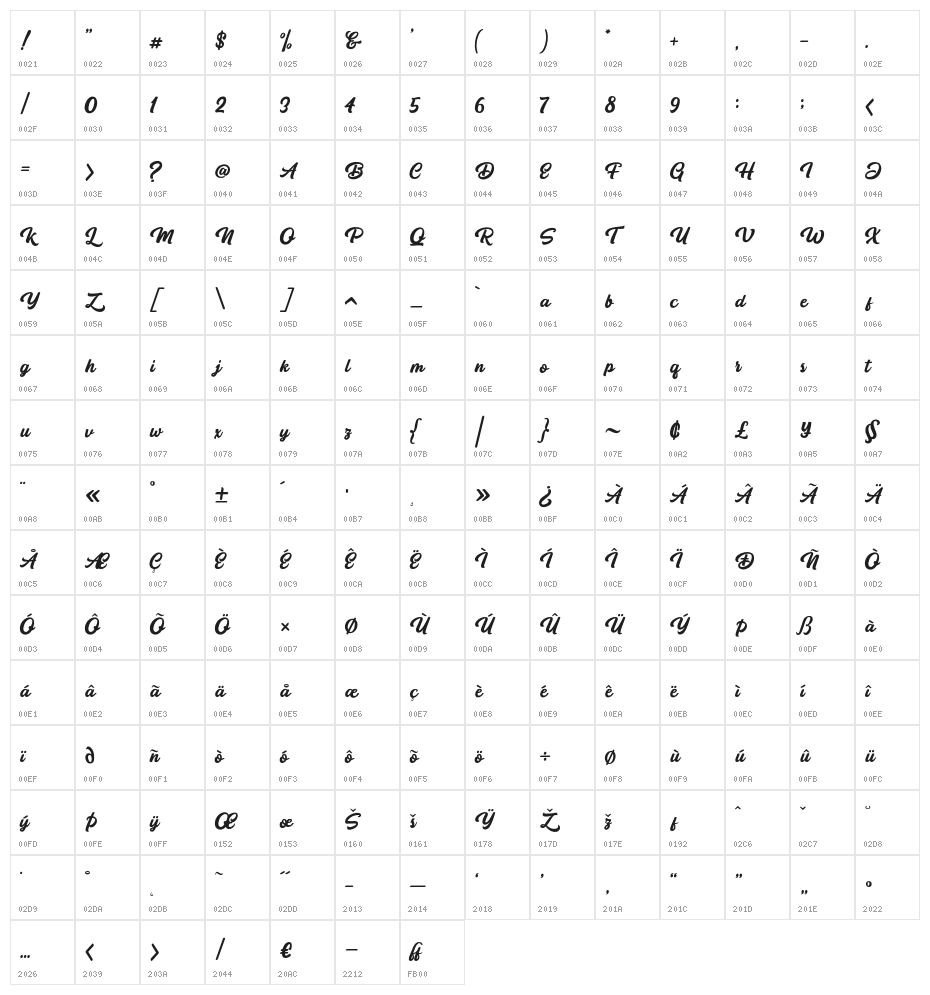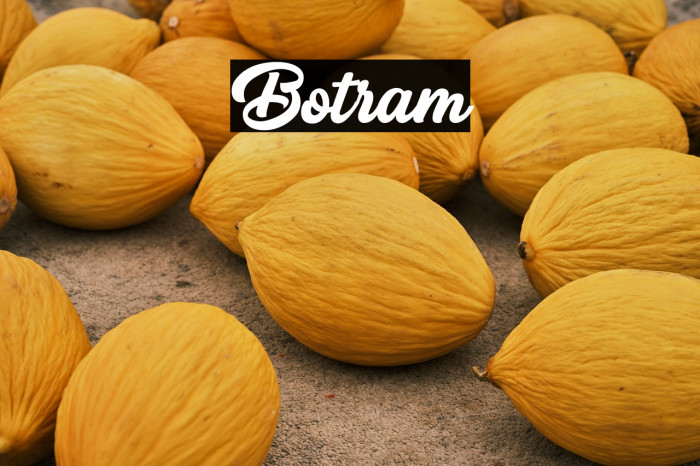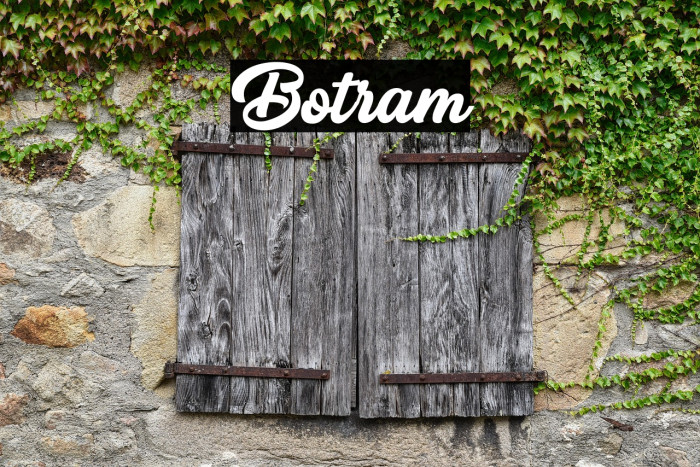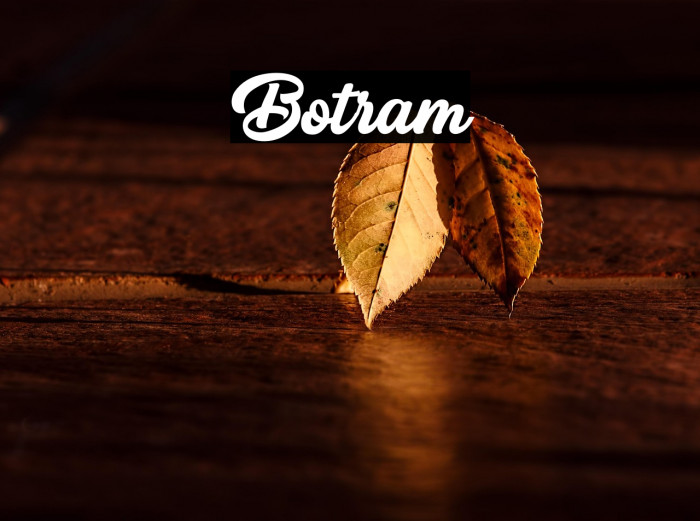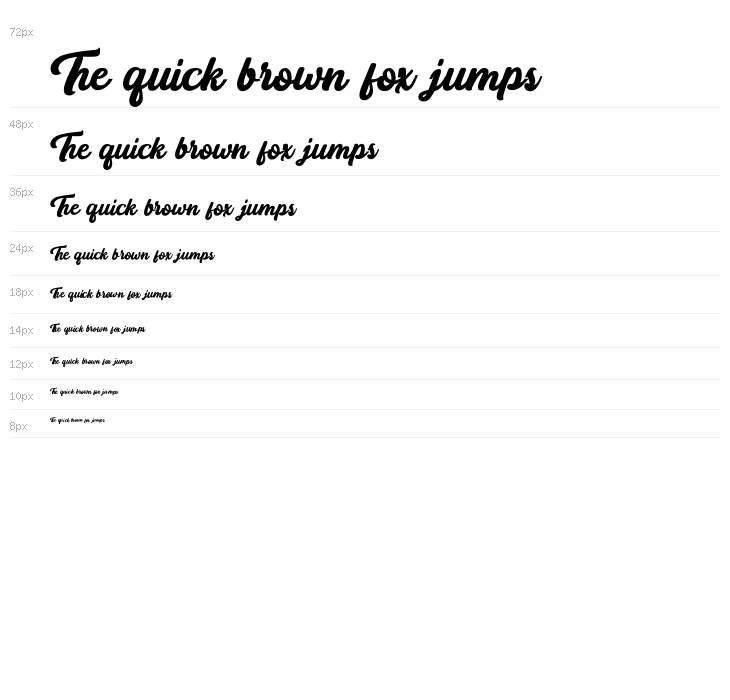
Botram Font
Botram Description
This font features a bold, cursive style with a flowing, elegant appearance. The uppercase letters are characterized by their sweeping curves and decorative flourishes, giving them a dynamic and sophisticated look. The lowercase letters maintain a consistent style, with smooth connections between characters that enhance readability while preserving the script's artistic flair. The numerals are distinct and clear, matching the overall aesthetic with subtle curves. Special characters are well-integrated, maintaining the font's cohesive design. This font is ideal for projects that require a touch of elegance and personality.
| Use Case | Logos, Headlines, Invitations |
| Proposed Projects | Ideal for wedding invitations, elegant branding, greeting cards, and decorative signage. |